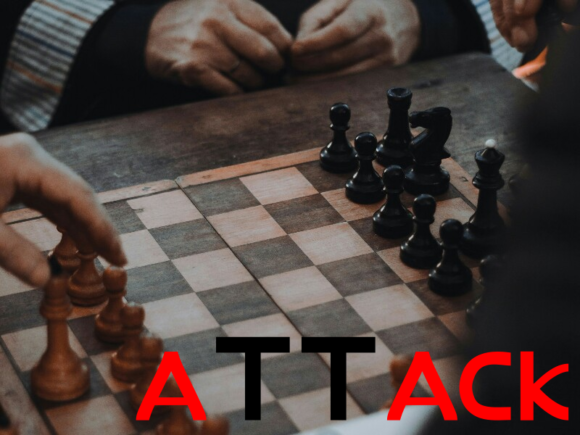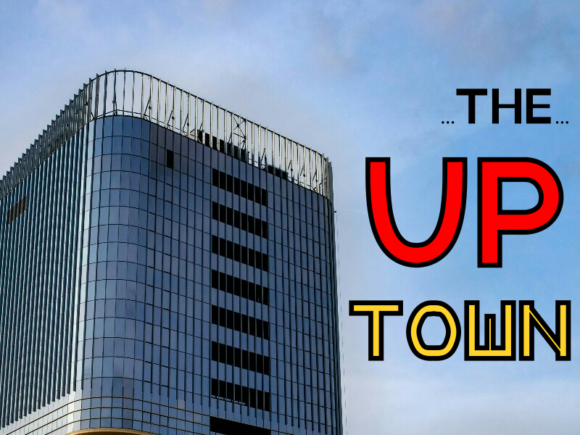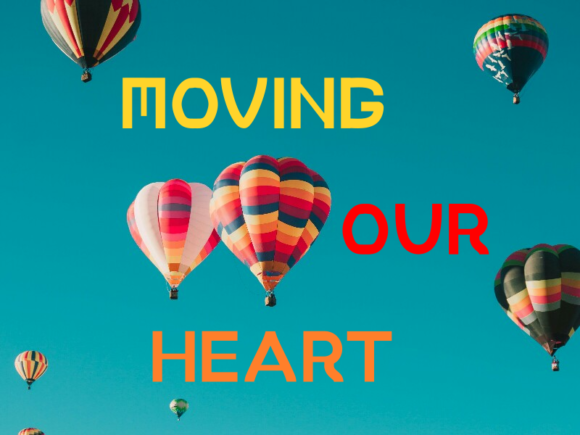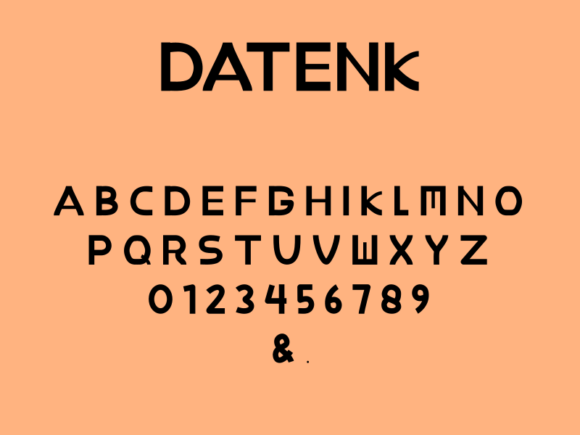
Introducing Datenk Font: The Ultimate Display Font for Bold Designs
Are you looking for a font that can add a touch of boldness and coolness to your designs? Look no further than Datenk Font! This stunning display font features thick and imposing characters that are sure to make your posters, flyers, and prints stand out. In this article, we’ll explore the features and benefits of Datenk Font, and show you how to make the most of its endless possibilities.
What is Datenk Font?
Datenk Font is a modern display font designed to make a statement. Its thick and bold characters are perfect for creating eye-catching headlines, titles, and captions. The font’s imposing presence makes it ideal for use on posters, flyers, brochures, and other print materials. Whether you’re a designer, crafty DIY enthusiast, or simply someone who loves to create, Datenk Font is a must-have addition to your font collection.
Key Features of Datenk Font
- Bold and Imposing Characters: Datenk Font features thick and bold characters that are sure to grab attention.
- Cool and Modern Design: The font’s sleek and modern design makes it perfect for creating contemporary and stylish designs.
- Highly Versatile: Datenk Font can be used on a wide range of design projects, from posters and flyers to prints and digital media.
- Easily Readable: Despite its bold design, Datenk Font is surprisingly easy to read, making it perfect for use on body text and captions.
Benefits of Using Datenk Font
So why choose Datenk Font for your designs? Here are just a few benefits of using this amazing display font:
- Adds Impact and Emphasis: Datenk Font’s bold design adds emphasis and impact to your text, making it perfect for creating attention-grabbing headlines and titles.
- Enhances Readability: The font’s clear and readable design makes it easy for your audience to quickly scan and understand your text.
- Perfect for Branding and Marketing: Datenk Font’s modern and stylish design makes it perfect for use on branding and marketing materials, such as business cards, brochures, and social media graphics.
- Endless Creative Possibilities: With Datenk Font, the creative possibilities are endless! Use it to create stunning posters, eye-catching flyers, and captivating prints.
How to Use Datenk Font in Your Designs
- Pair it with Other Fonts: Datenk Font pairs well with other fonts, such as sans-serif fonts like Arial or Helvetica. Experiment with different font combinations to create visually appealing designs.
- Experiment with Colors and Textures: Datenk Font looks great in a variety of colors and textures. Try experimenting with different colors, gradients, and textures to add depth and interest to your designs.
- Use it for Headlines and Titles: Datenk Font is perfect for use on headlines and titles. Use it to create attention-grabbing text that draws your audience in.
| Font Name | Datenk Font |
| Author | Cocoriscranjy |
In conclusion, Datenk Font is a cool and bold display font that’s perfect for designers, crafters, and anyone who loves to create. With its thick and imposing characters, modern design, and endless creative possibilities, Datenk Font is a must-have addition to your font collection. So why wait? Download Datenk Font today and start creating stunning designs that demand attention!